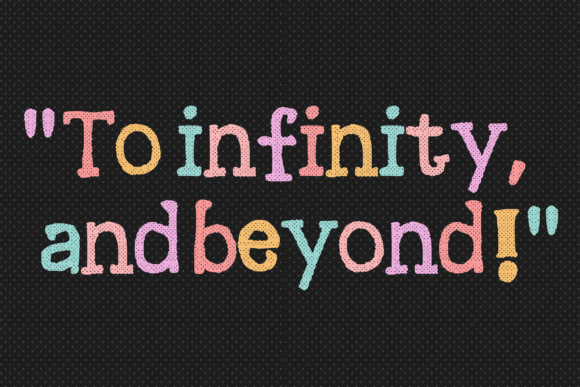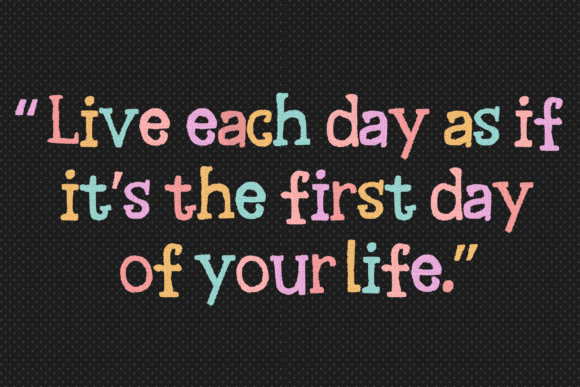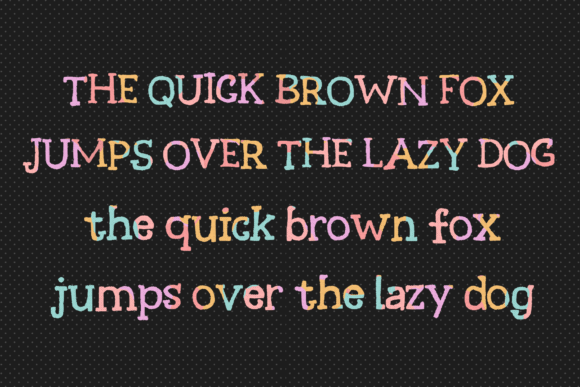
Introduction to Retro Painter Font
Remember that moment when you stumbled upon the perfect design inspiration? For many of us, it’s a spark of creativity that sets off a chain reaction of ideas. As a designer, you’re no stranger to the thrill of finding that one special resource that makes your project truly shine. And for those who love to work with vintage flair, we’re excited to introduce you to the Retro Painter Font – a delightful, retro display font that’s sure to captivate your imagination.
With its charming dots screentone and high-quality design, the Retro Painter Font is an absolute must-have for any creative project that demands a touch of nostalgia. Whether you’re designing t-shirts, kids’ book illustrations, or greeting cards, this versatile font is the perfect design resource to bring your ideas to life. And the best part? You can use it with a transparent background for seamless integration into your designs.
As a free download, the Retro Painter Font is an invaluable asset for designers of all levels, offering a unique and stylish way to add a casual touch to your work. So why not give it a try and see how this fantastic font can elevate your next design project?
Key Features of Retro Painter Font
- High-quality, hand-painted design perfect for creative projects that require a unique touch.
- Features a transparent background, allowing for seamless integration into any design.
- Designed with a high level of detail, ideal for use in graphic design, digital art, and creative projects.
- Unique, hand-painted style that sets it apart from other fonts, making it perfect for designers looking for a distinctive look.
Honest Review: Retro Painter Font
I recently stumbled upon the Retro Painter Font, and I must say it’s been a great addition to my design resource collection. This font is perfect for creating a nostalgic vibe in any project, whether it’s a poster, flyer, or even a website.
What works well: ✨ The Retro Painter Font has a unique, hand-painted feel that’s hard to replicate with other fonts. It’s perfect for adding a touch of whimsy and personality to your design. The high-quality vector format makes it easy to scale and manipulate, and the free download is a bonus!
- Perfect for creative projects that require a nostalgic or vintage feel
- High-quality vector format for easy scaling and manipulation
- Unique, hand-painted design
What’s not so great: ⚠️ The font’s transparent background can sometimes be a bit tricky to work with, especially if you’re not used to designing with transparent backgrounds. However, this is a minor quibble, and the benefits of using this font far outweigh the drawbacks.
Overall impression: I’m really impressed with the Retro Painter Font. It’s a high-quality design resource that’s perfect for anyone looking to add a unique touch to their creative project. If you’re looking for a font that’s a little bit quirky and a lot of fun, I highly recommend giving this one a try.
Retro Painter Font
The Retro Painter Font is a high-quality design resource that can elevate your creative project to the next level. This free download offers a unique, nostalgic aesthetic that can add a touch of sophistication to any design.
To get the most out of the Retro Painter Font, try using it with a transparent background to create a stunning design. You can also experiment with different font sizes and colors to add depth and visual interest to your project.
The Retro Painter Font is perfect for creating vintage-inspired designs, such as:
- Invitations and event promotions
- Advertising and marketing materials